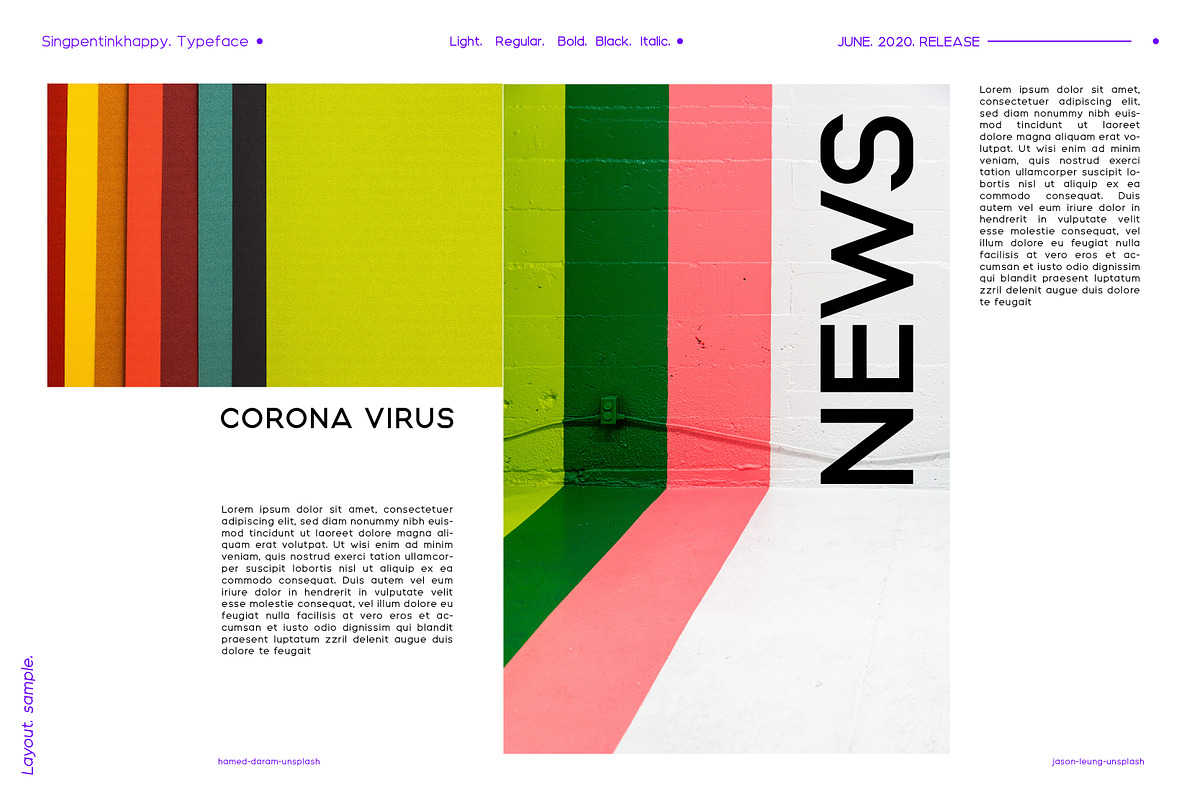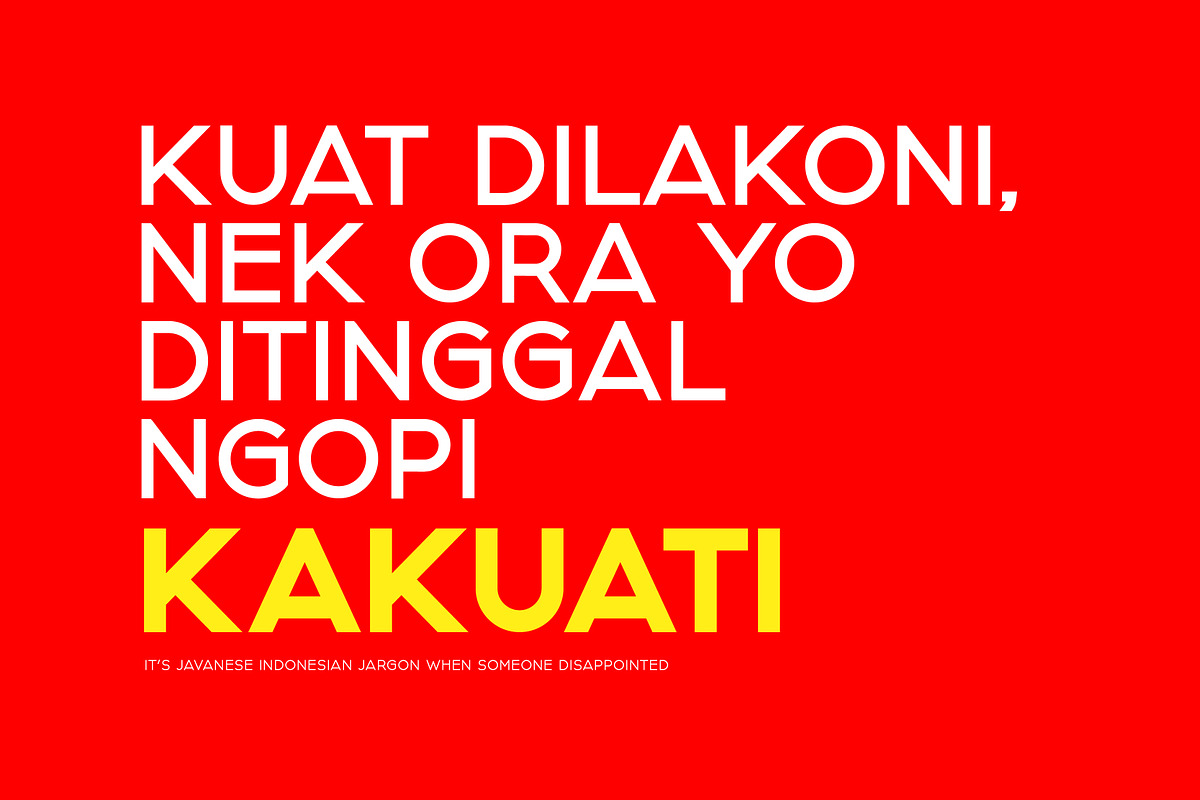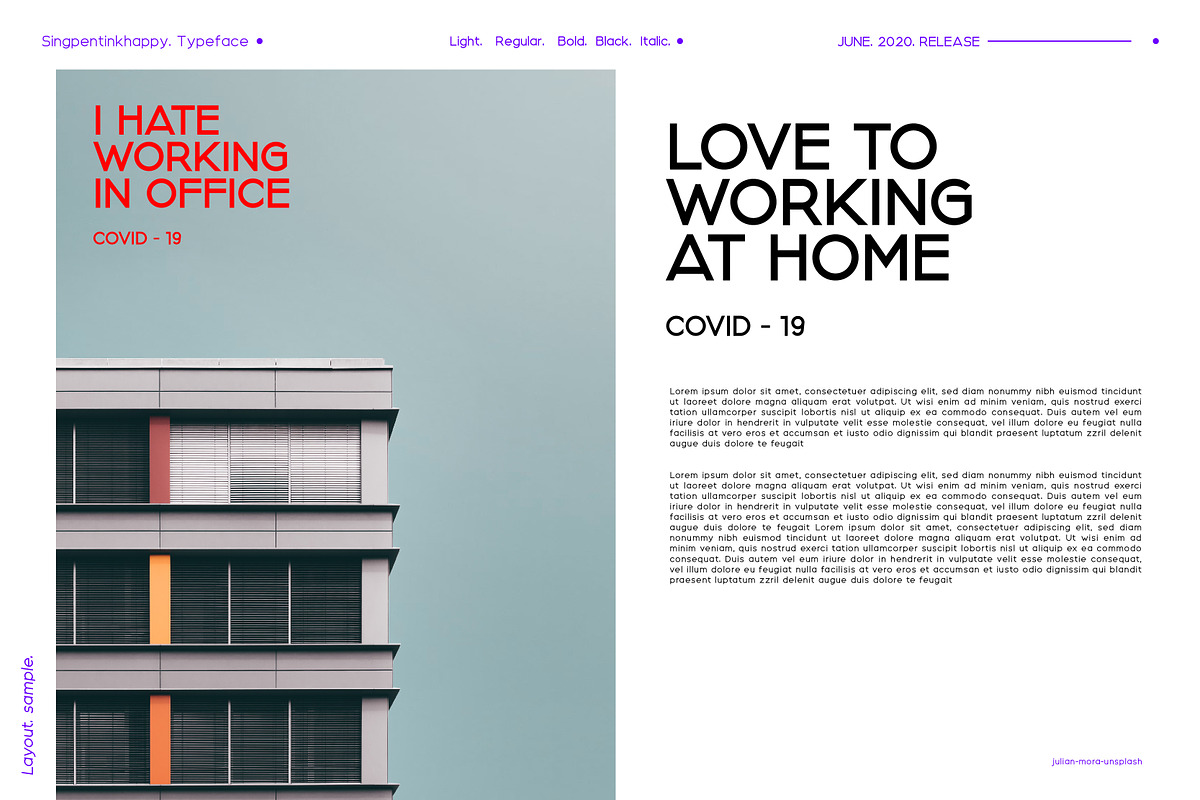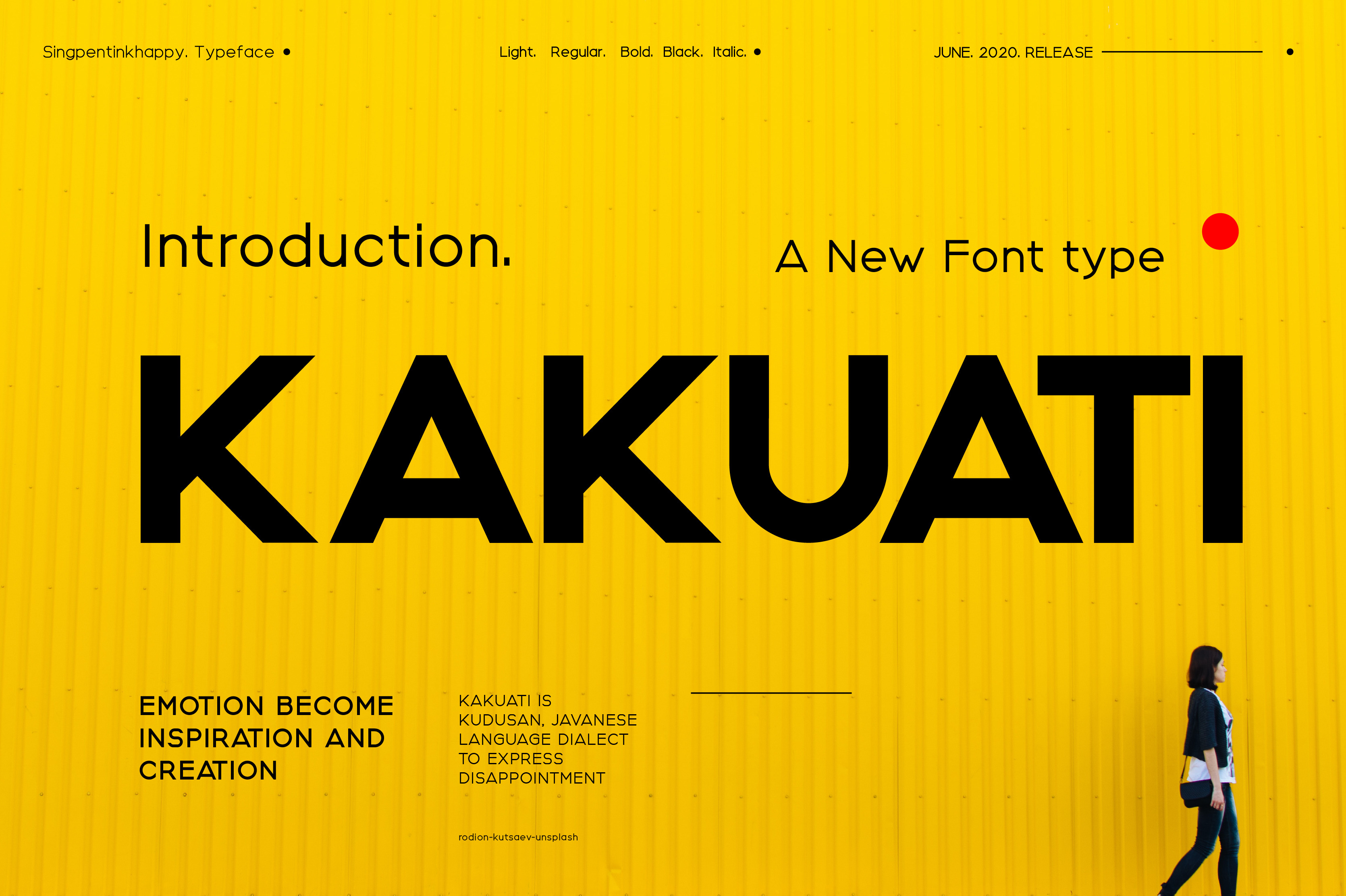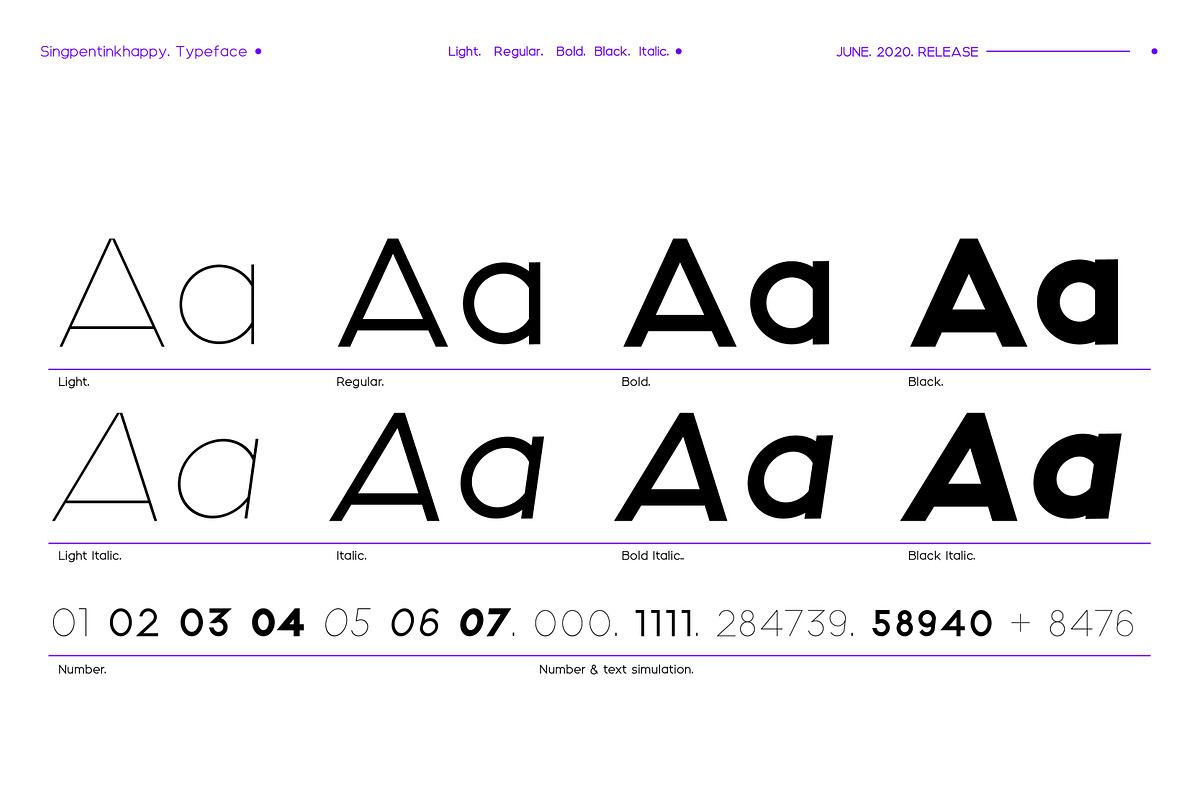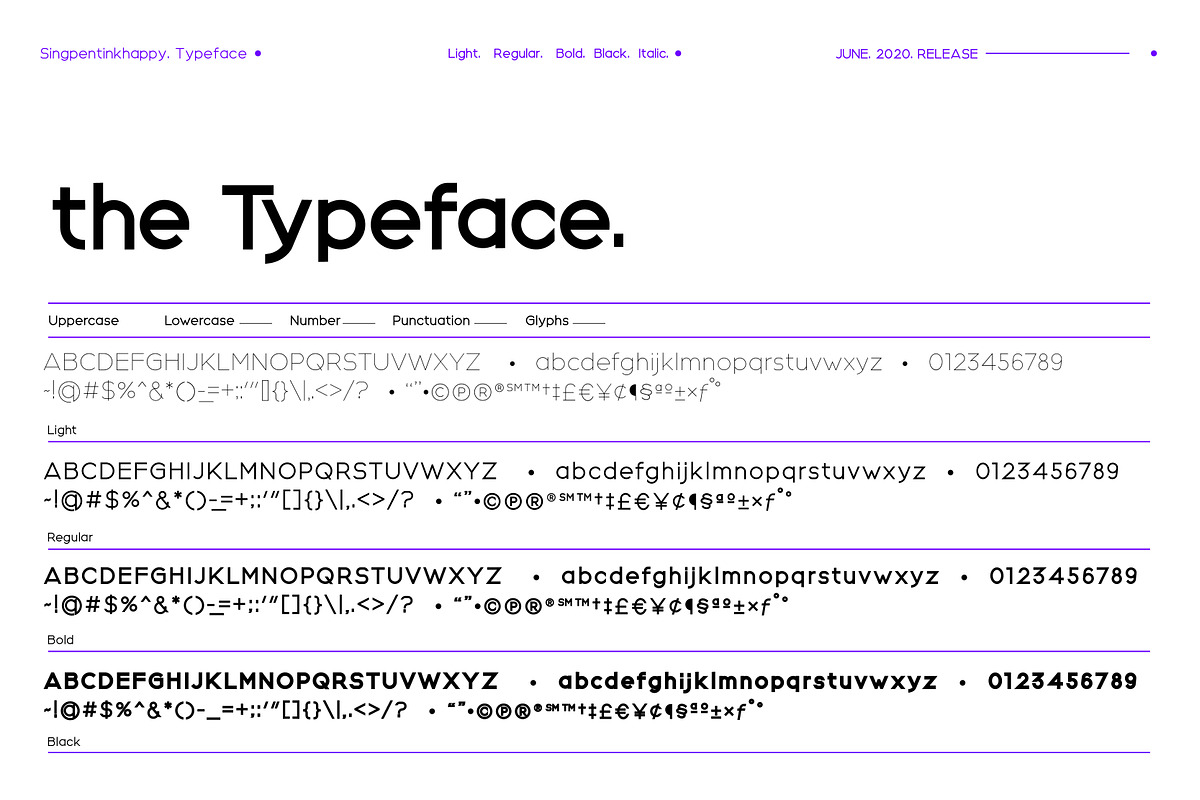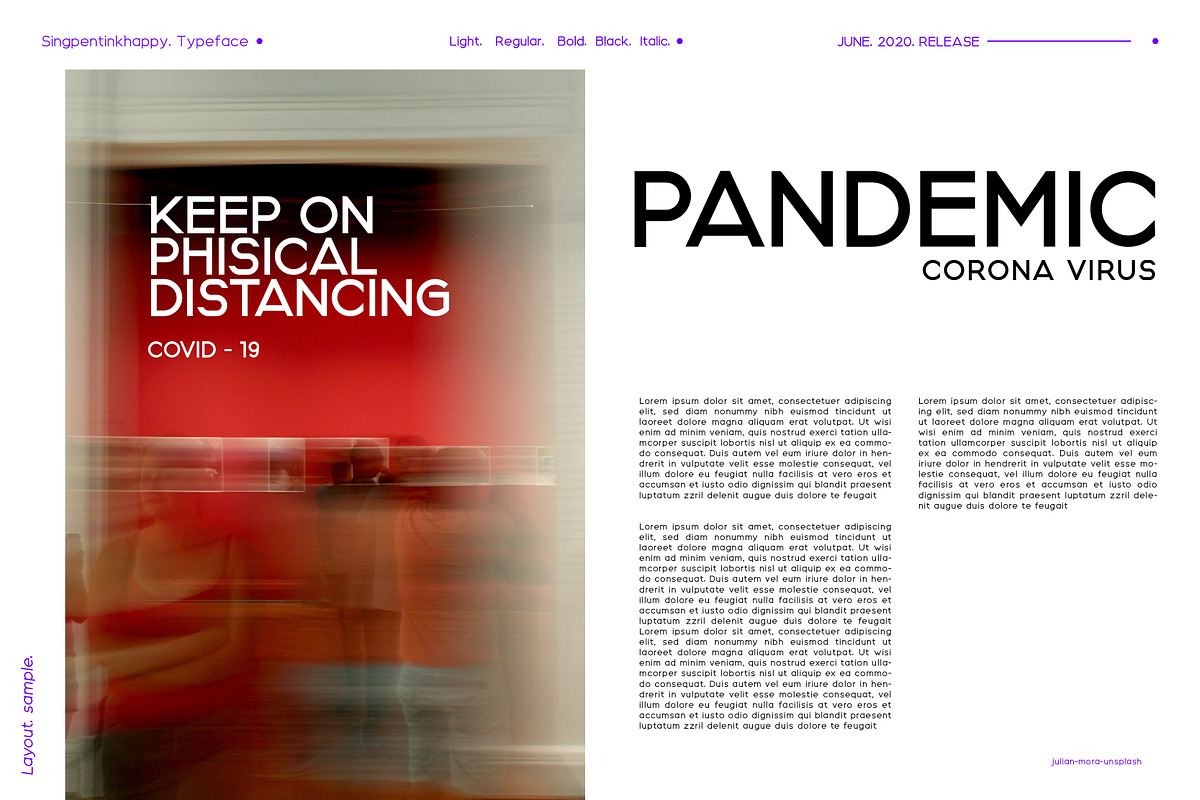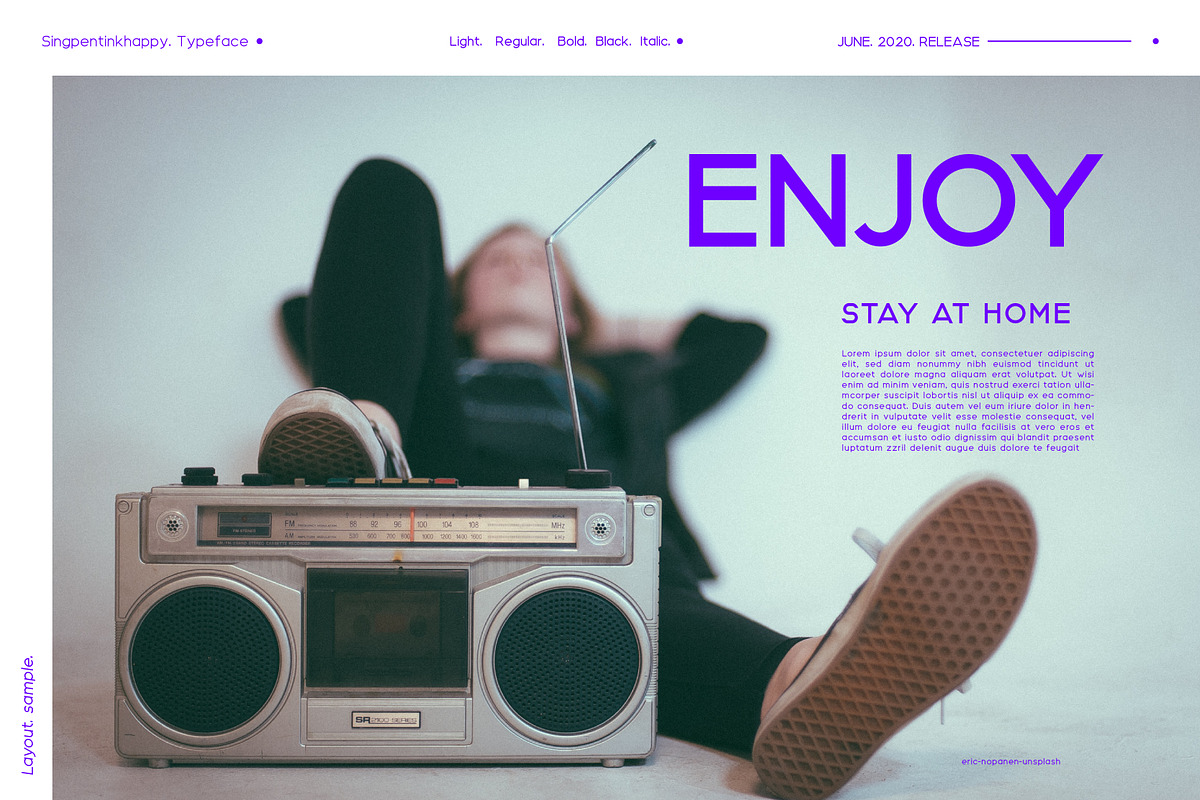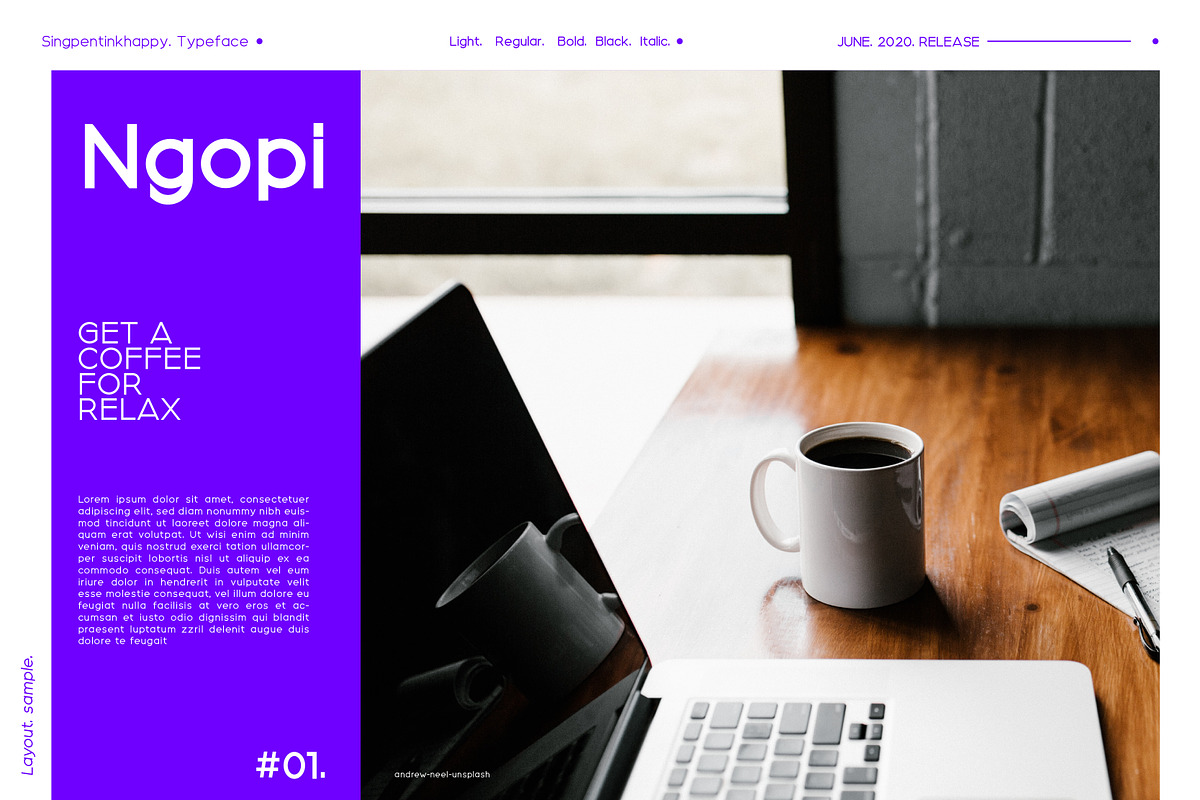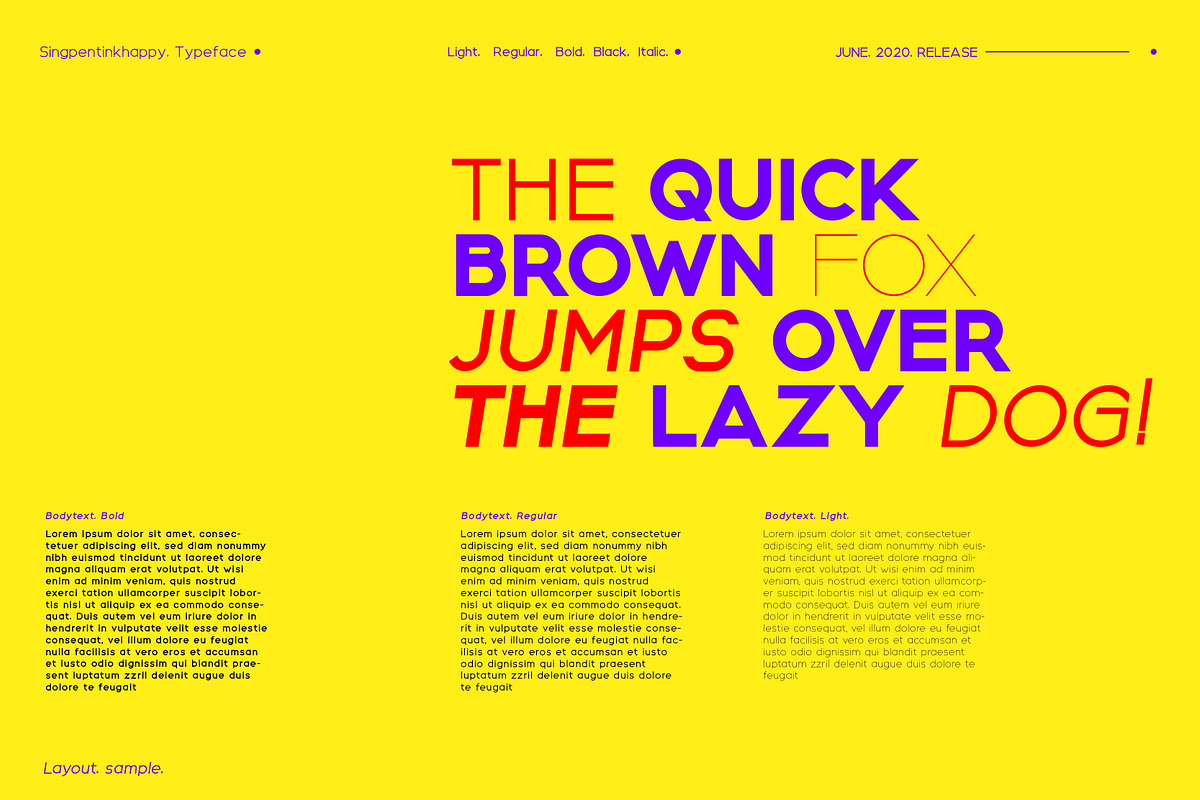
Kakuati Font
KAKUATI is simple minimalist strong modern typeface,
It’s inspired by disappointing people.
Kakuati is good for branding, commercial, logos, editorial, fashion, music, and travel. So for design and typography experiment, it’s very interesting. Thanks for checking out Kakuati.
Kakuati Typeface:"
• Kakuati Light. For Caption • Kakuati Regular. For Bodytext • Kakuati Bold For Headline and subhedline • Kakuati Black For Headline
Italics | Numbers | Punctuation | Glyphs